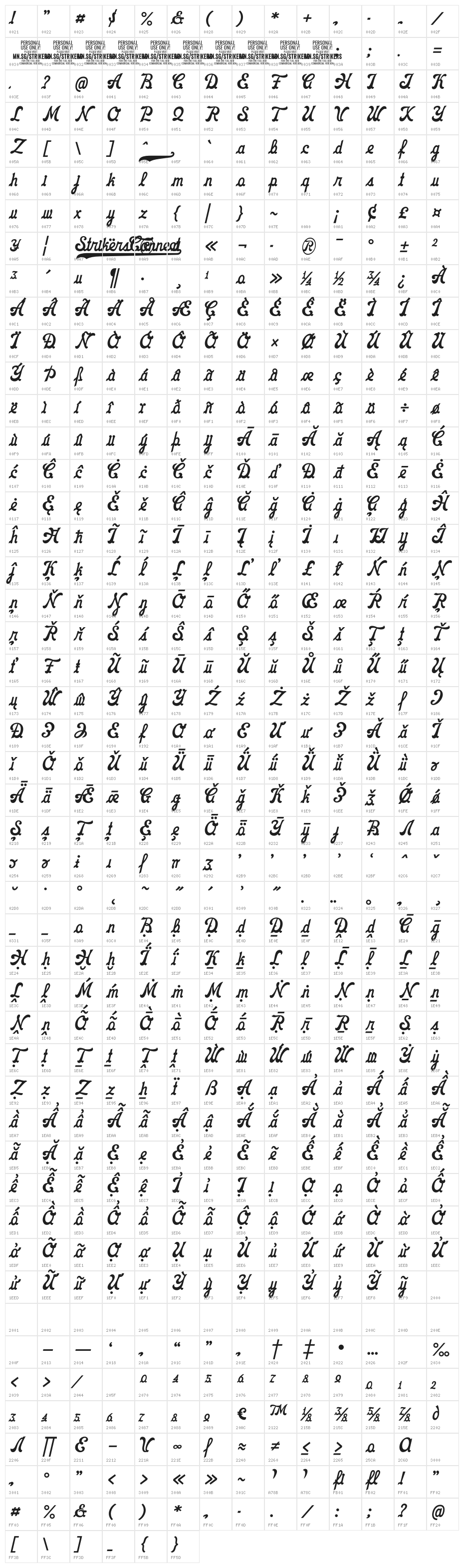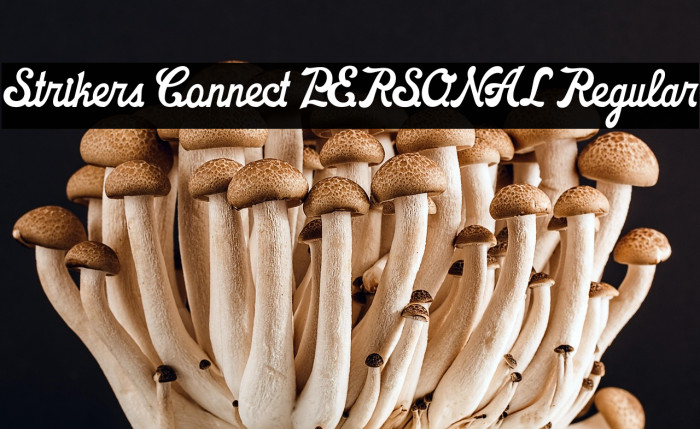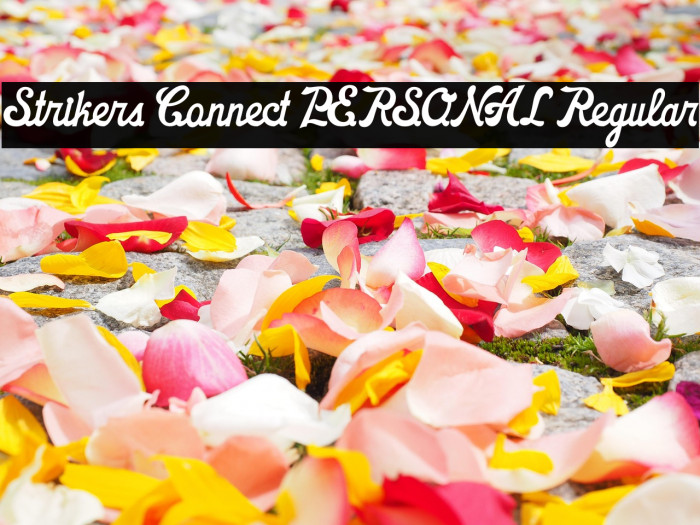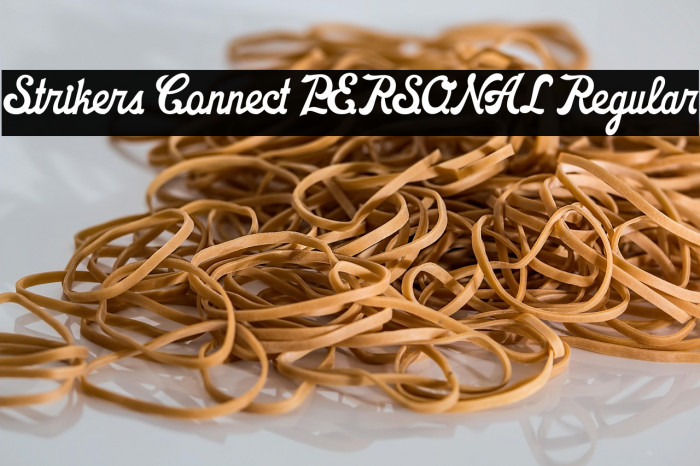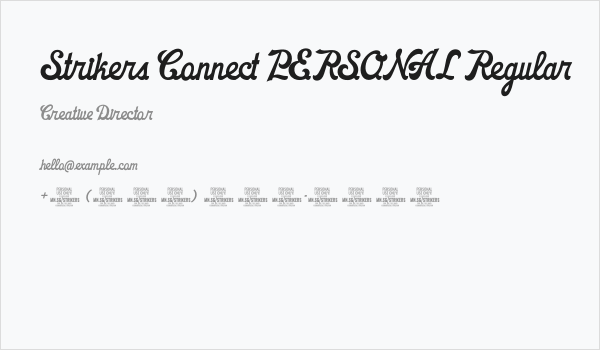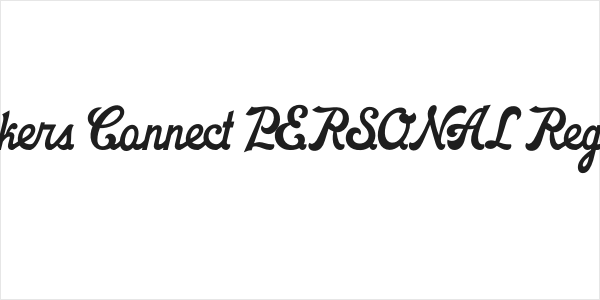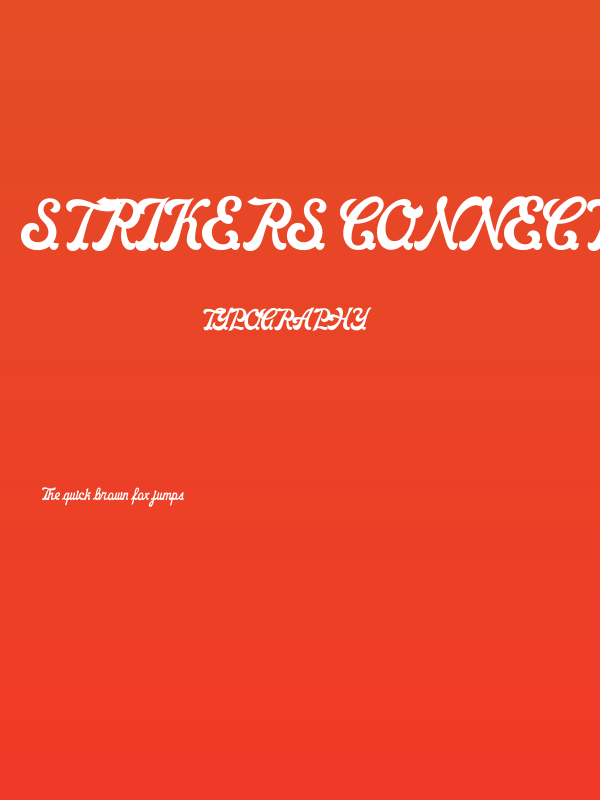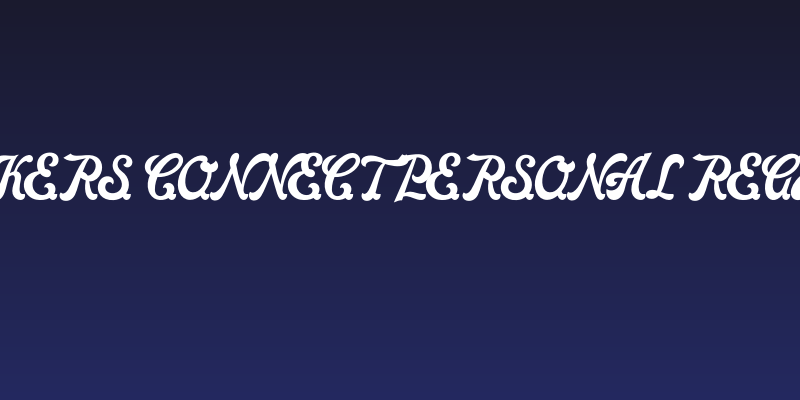
Strikers Connect PERSONAL Regular Font
Strikers Connect PERSONAL Regular Description
This font features a bold, cursive style with a strong presence and fluid motion. The uppercase letters are intricately designed with sweeping curves and elegant loops, giving a sense of movement and dynamism. The lowercase letters maintain this fluidity, with a slightly more compact form, ensuring readability while retaining the decorative flair. The numbers and special characters are consistent with the overall style, featuring similar curves and bold strokes. This font is ideal for projects that require a touch of elegance and boldness, such as branding or headlines.
| Proposed Projects | Ideal for branding, logos, headlines, and decorative purposes. |